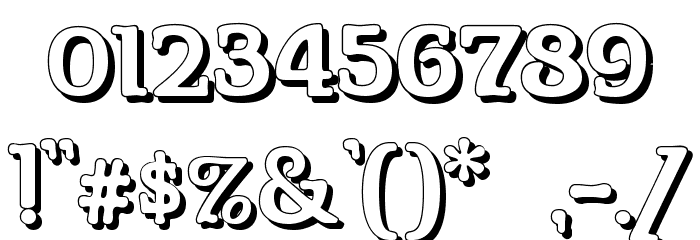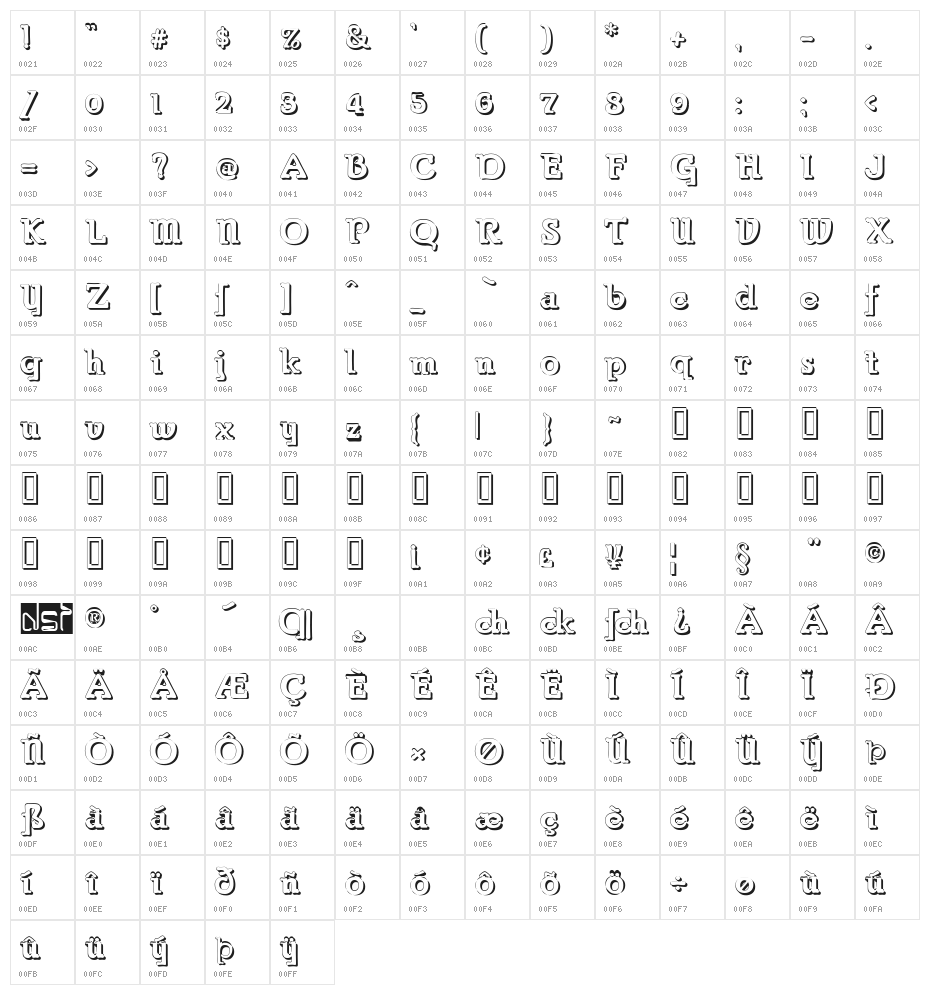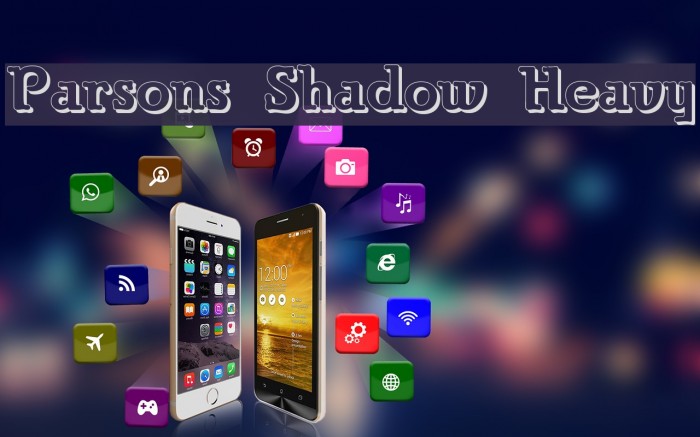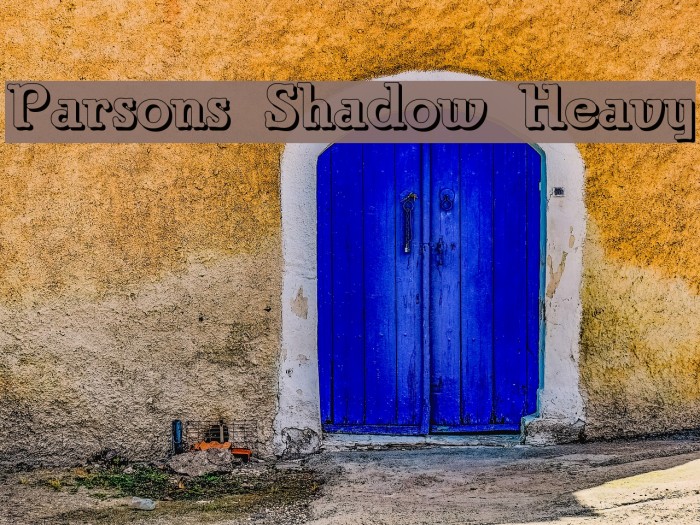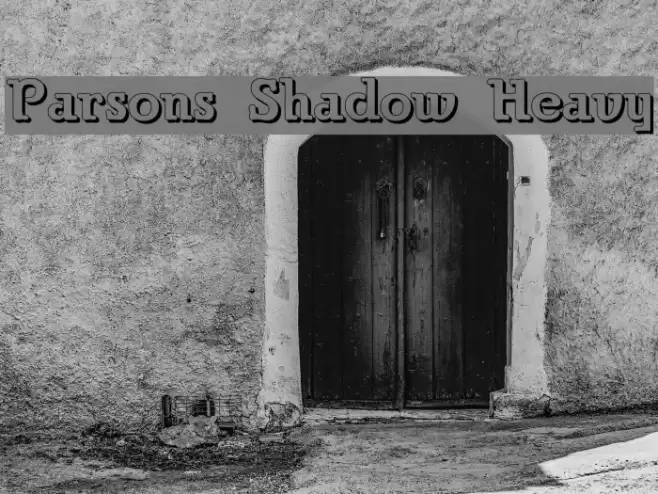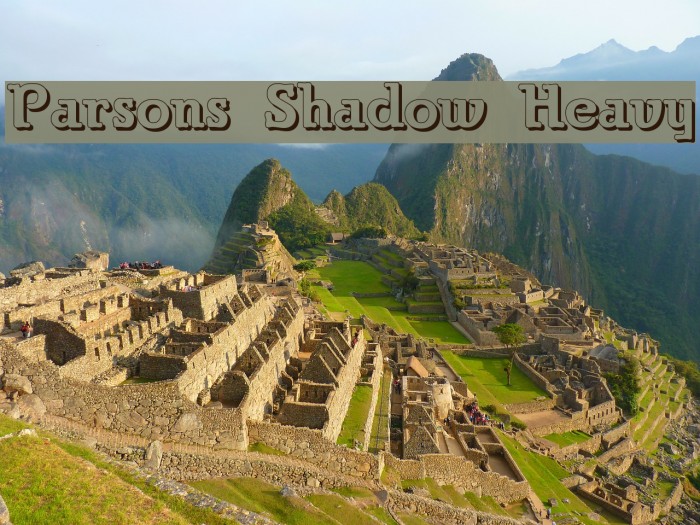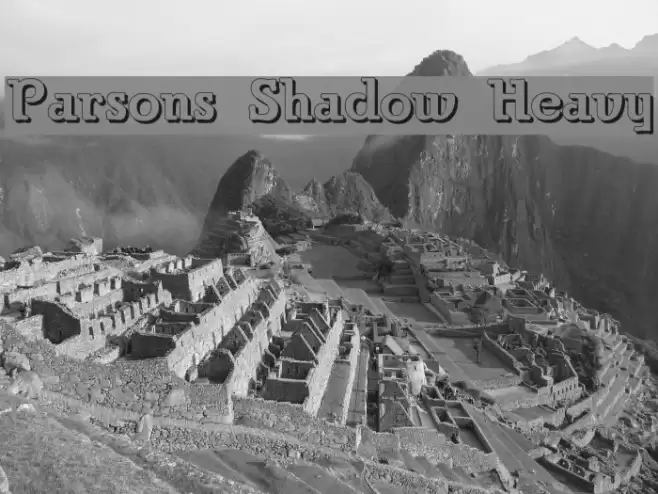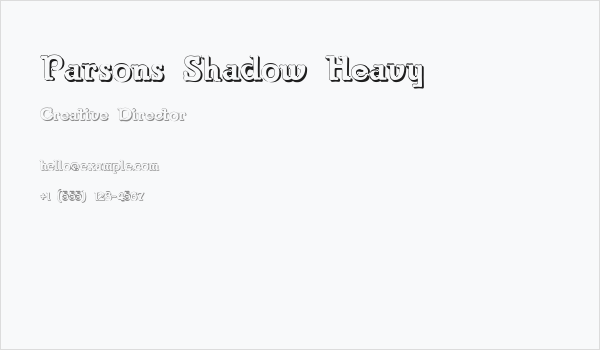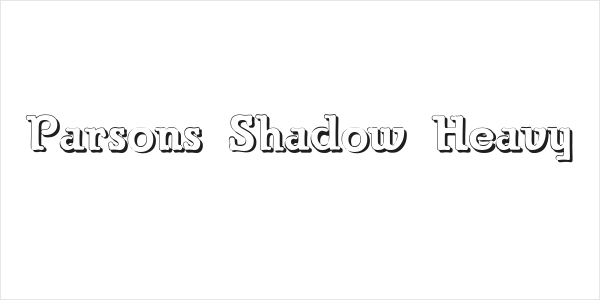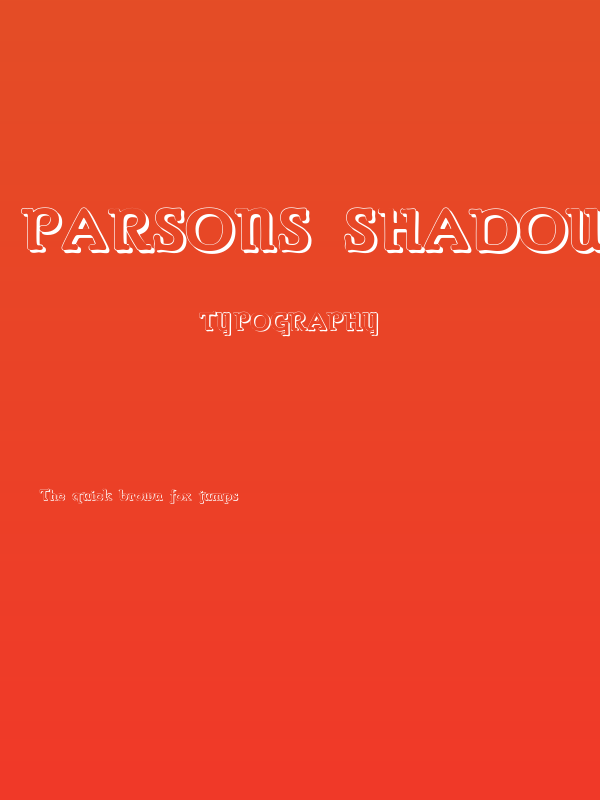
Parsons Shadow Heavy Font
Parsons Shadow Heavy Description
This font features a bold and striking shadow effect that adds depth and dimension to each character. The letters are robust with a strong presence, making them ideal for attention-grabbing designs. The shadowing is consistent and provides a three-dimensional look, enhancing the visual impact. The uppercase and lowercase letters maintain a uniform style, with clean lines and a balanced structure. Numbers and special characters are equally bold, ensuring consistency across all text elements.
| Proposed Projects | Ideal for poster designs, headlines, logos, and any project requiring a dramatic and impactful typeface. |